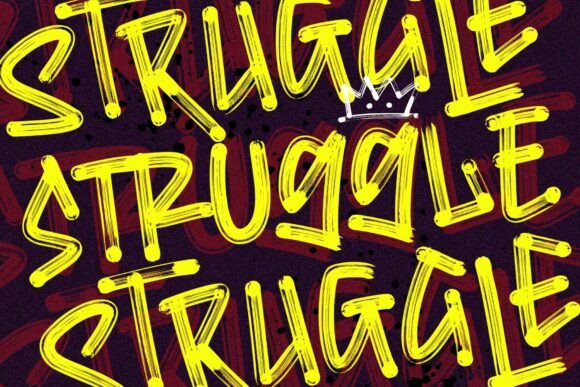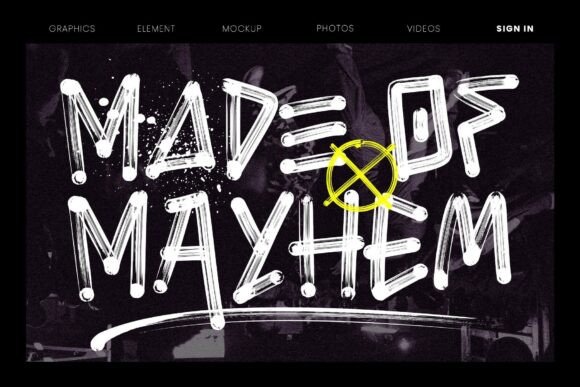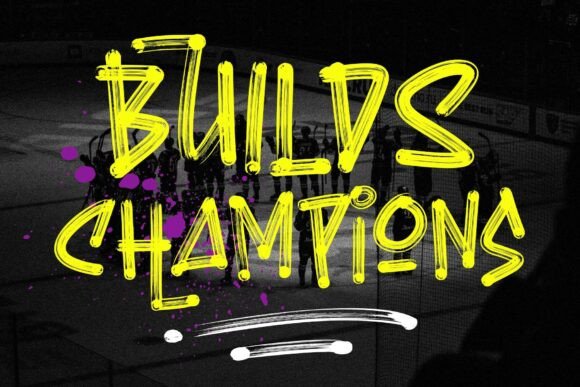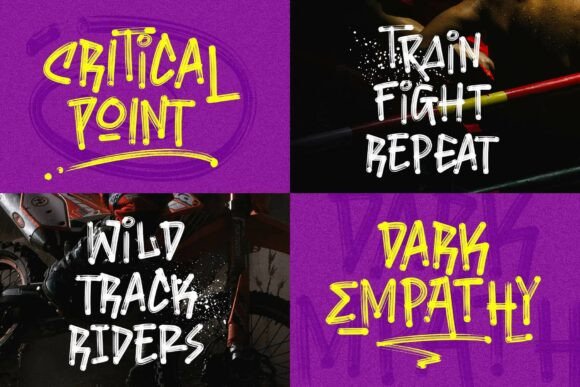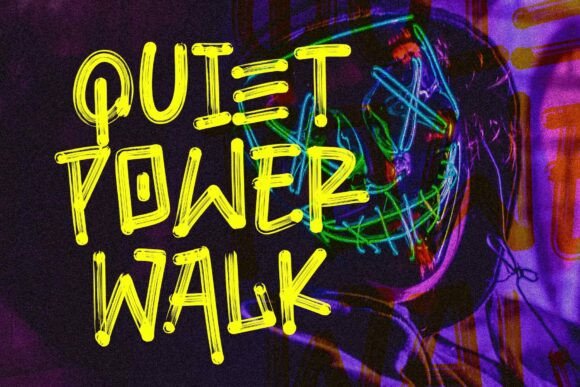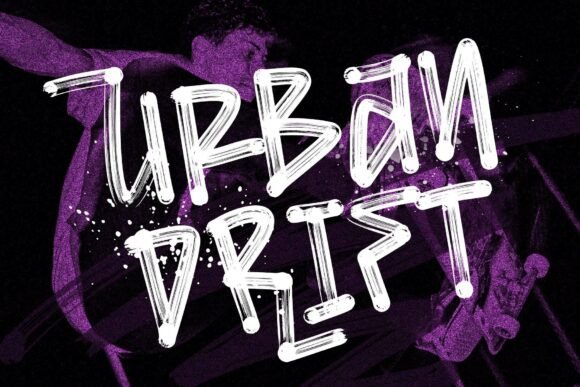
The Unmistakable Charm of Brosnoirs Font: A Designer’s New Best Friend
This bold, textured marker font has a raw, unapologetic energy that’s perfect for designs that need a bit of attitude. Inspired by graffiti strokes and urban street culture, Brosnoirs brings a level of authenticity and expressiveness to your typography that’s hard to match.
What I Love About Brosnoirs Font ✨
- ✅ Unique Texture: Every character feels hand-drawn with rough pressure and imperfect edges, giving your designs a one-of-a-kind look.
- ✅ Extra Alternates and Dingbats: The font includes a range of playful alternates and dingbats, making it easy to create dynamic, custom-looking typography.
- ✅ Versatility: Brosnoirs works beautifully for posters, apparel, album covers, branding, and social media graphics – anywhere you need to make a bold statement.
While Brosnoirs is an amazing font, it’s not without its quirks. For example:
- 🤔 Legibility at Small Sizes: Due to its textured nature, Brosnoirs can be a bit tricky to read at very small font sizes. It’s best used at larger sizes where its unique character can shine.
- ⚠️ Overuse: As with any bold font, it’s easy to overuse Brosnoirs. Make sure to balance it with simpler typography to avoid overwhelming your design.
The Story Behind Brosnoirs Font
Brosnoirs Font was born from a passion project by a young type designer who grew up surrounded by street art and urban culture. Inspired by the raw energy of graffiti and the imperfections of hand-drawn typography, the designer aimed to create a font that felt alive and unapologetic. With Brosnoirs, they succeeded in crafting a unique voice for designers looking to add some grit and attitude to their work.
| What type of designs is Brosnoirs best suited for? | Brosnoirs excels in designs where attitude and impact matter, such as posters, apparel, album covers, branding, and social media graphics. |
| Is Brosnoirs available in different weights or styles? | Currently, Brosnoirs is available as a single, bold font. However, its extra alternates and dingbats provide plenty of flexibility for creative typography. |